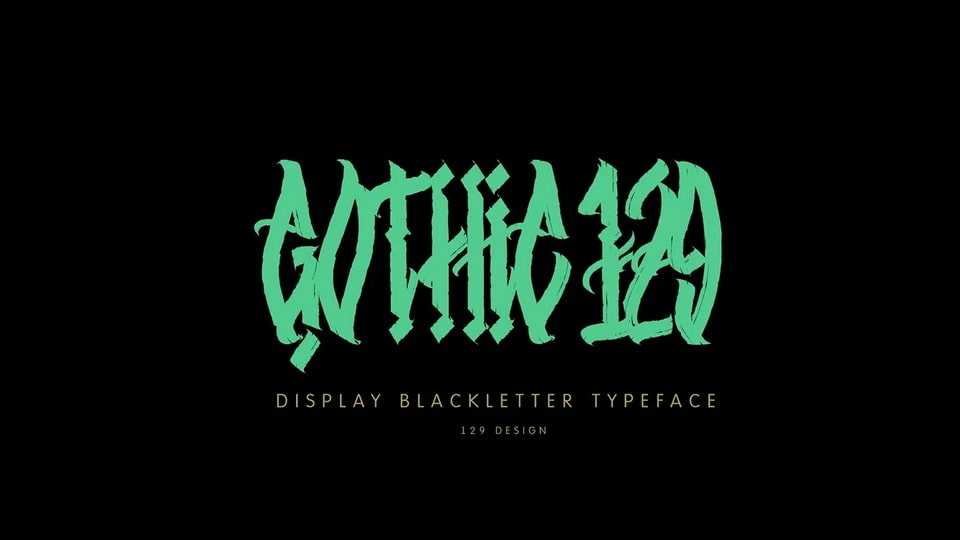
Download Gothic 129 font, a fierce and rebellious display blackletter typeface that brings a raw, energetic twist to classic gothic calligraphy with its sharp edges, dramatic strokes, and aggressive flair.
Designer: Vadim Bashlakov